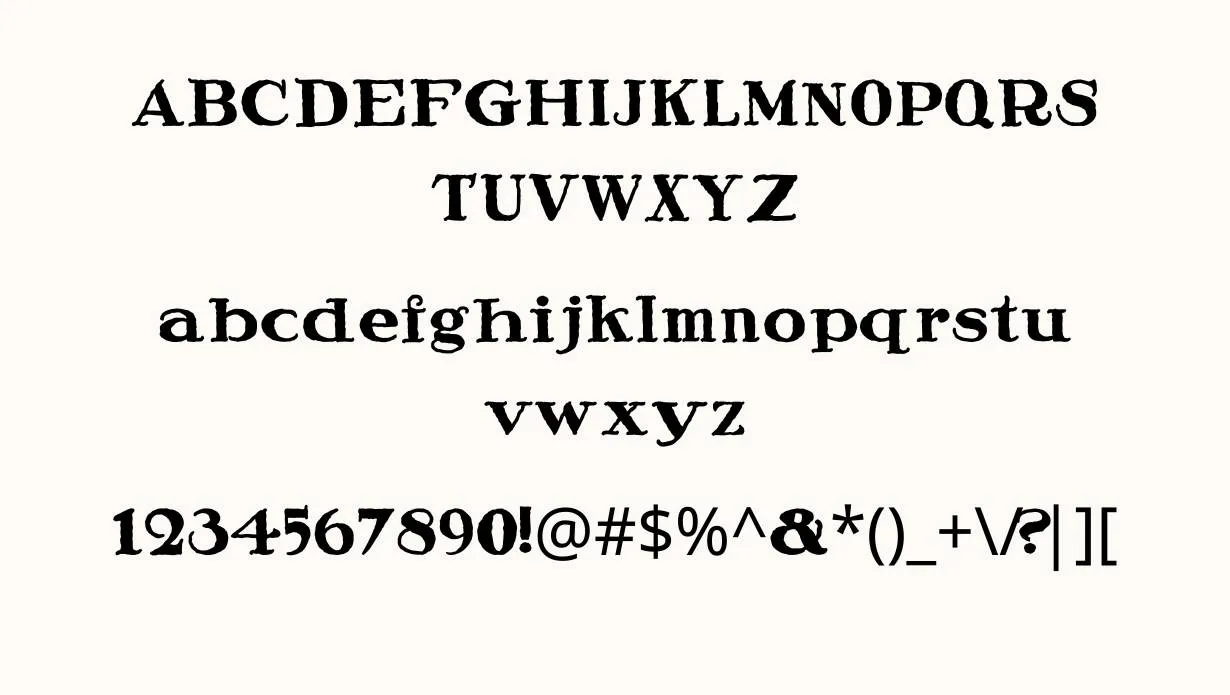
Speedball Ragged Font is a bold and expressive typeface known for its distinctive design. It’s often used in creative and artistic projects where designers want to convey a sense of energy and vibrancy.
The font’s expressive letterforms command attention and add a dynamic and bold element to your design work. If you want to make a design that is both exclusive and grabs attention, it is crucial to pair this font with the Flome Font.
| Name | Speedball Ragged Font |
| Designer | Paulo W |